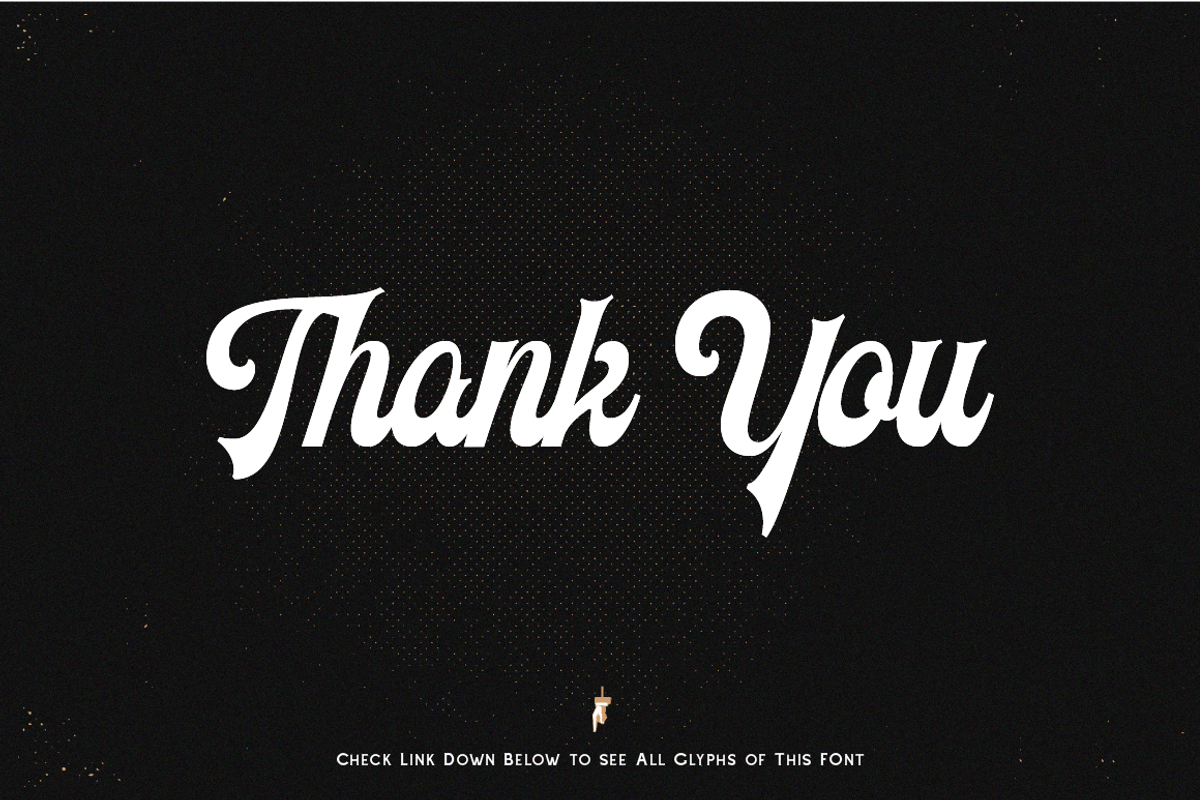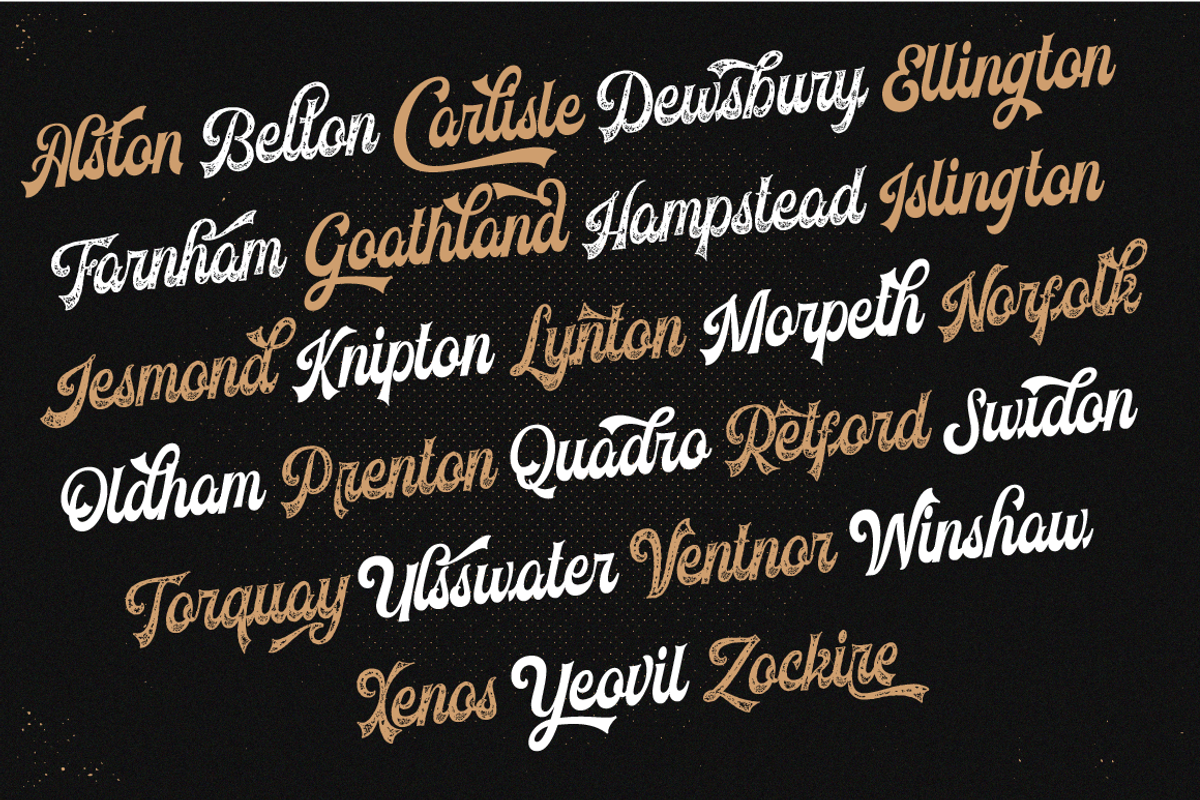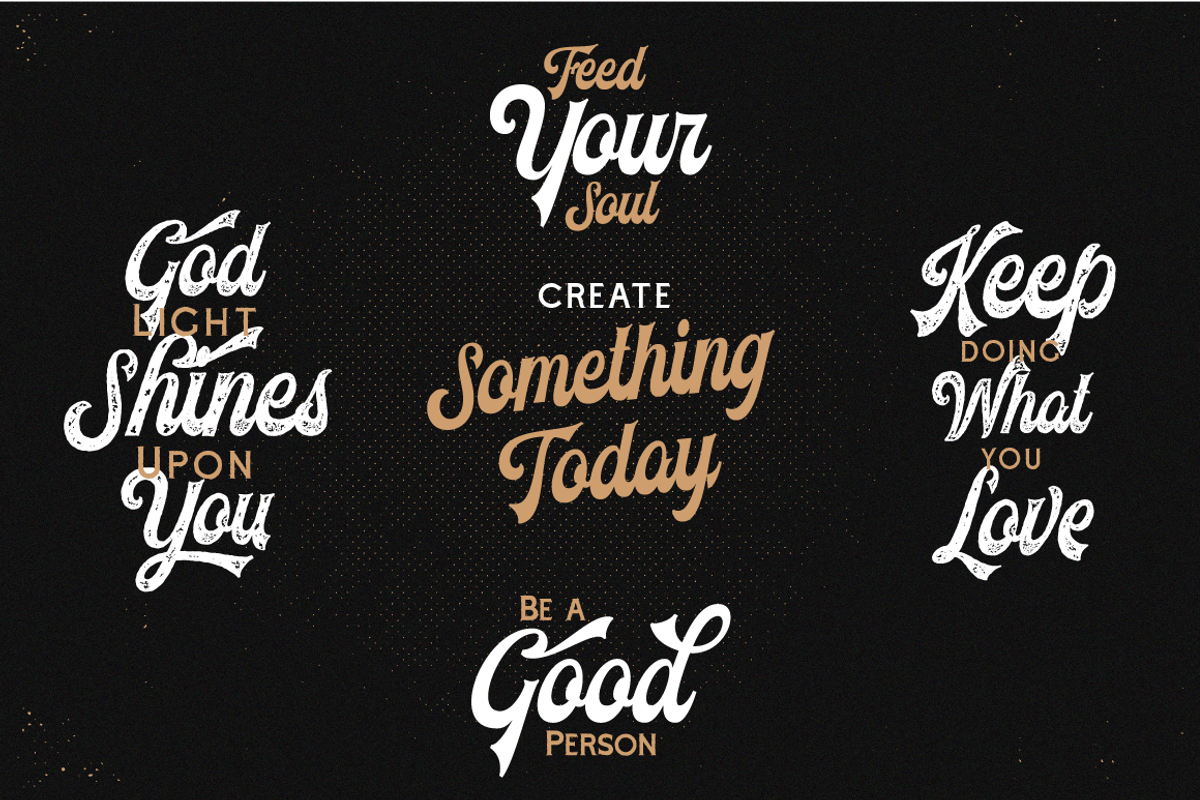
Voltury Vintage Script (with extras)
Every font have an unique character and thats character is the expression of your design
Now let us introduce our new font called "Voltury"
Voltury is a vintage typeface made by our hand lettering, this script created carefully to make a good flow and great character, this font made inspired by American vintage signage and packaging.
Voltury comes with 2 styles
- clean
- rough
also comes with opentype feature with ligature and stylistic alternate so you have more fleksibility to mix and match the letters and make your design stand out from the crowd and it comes with multilingual support.
all fonts inside this product is perfectly paired when used together and will make your design more interesting.